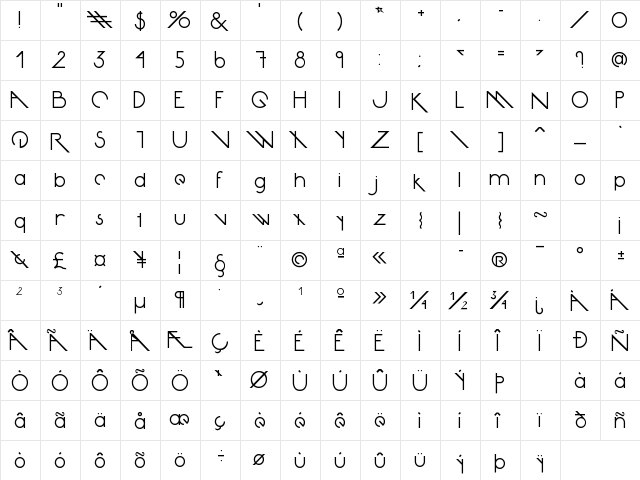
Avante Return Regular
| Foundry | Essqu預roductions |
| Designer | Stephen Knouse |
Design Context for Avante Return Typeface
Avante Return offers clean, dependable letterforms without strong stylistic allegiance, making it a practical choice for designers who need flexibility.
Pro Tip: Use Avante Return in both headline and body roles to test its range before committing to a single application.